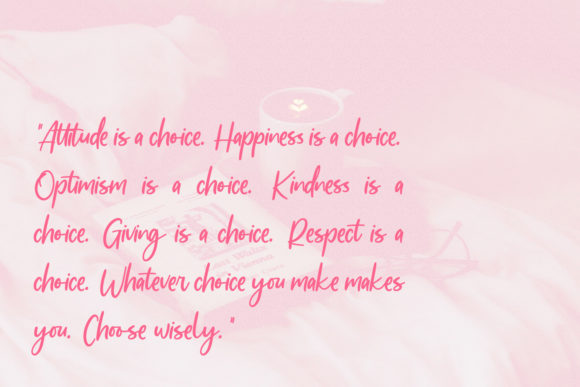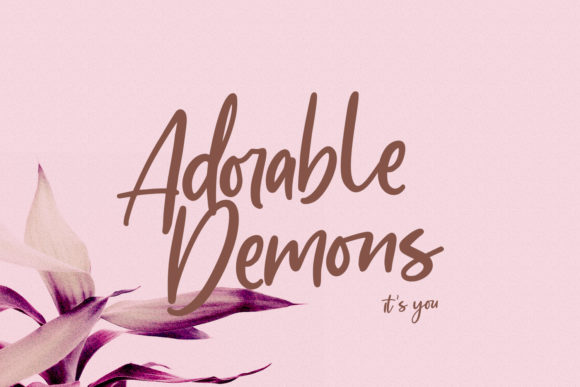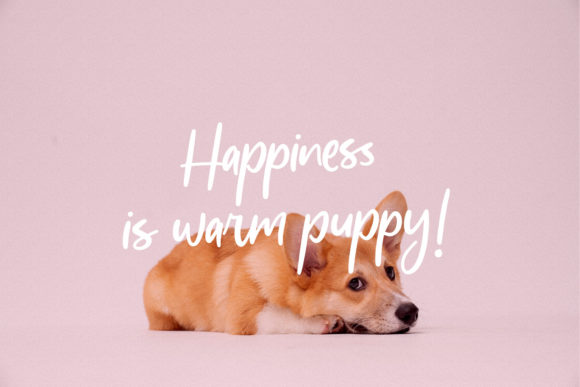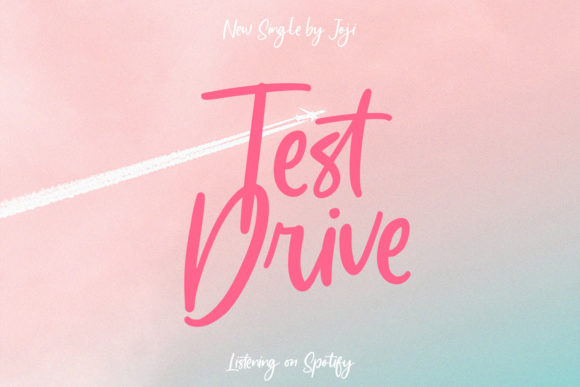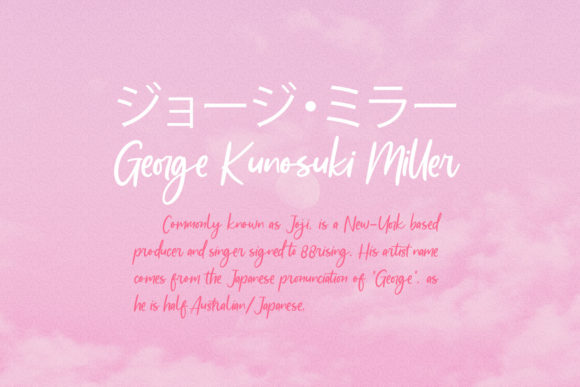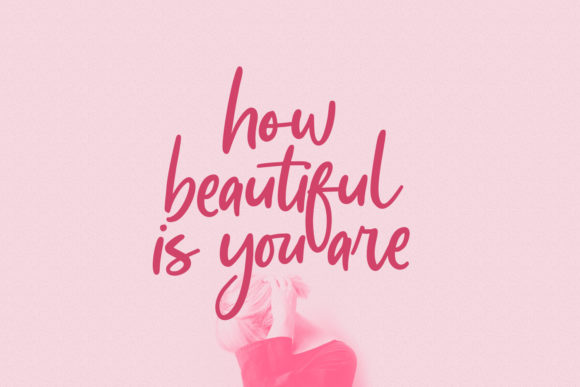
Introducing Adoredly Script Font: Elevate Your Designs with a Laid-Back, Handwritten Style
Are you tired of using the same old fonts in your designs? Do you want to add a touch of personality and whimsy to your creations? Look no further than Adoredly Script Font, a beautiful, laid-back, and flowing handwritten font that’s sure to become a staple in your font library.
What is Adoredly Script Font?
Adoredly Script is a stunning script font that features a lovely, elegant style. With its flowing lines and carefree vibe, this font is perfect for adding a touch of sophistication and charm to any design. Whether you’re working on a branding project, a wedding invitation, or a social media graphic, Adoredly Script Font is sure to impress.
Key Features of Adoredly Script Font
• Laid-back and flowing style: Adoredly Script Font features a relaxed, handwritten style that’s perfect for creating designs that feel friendly and approachable.
• Lovely and elegant: With its beautiful lines and curves, this font is sure to add a touch of sophistication to any design.
• Versatile: Adoredly Script Font can be used for a wide range of design projects, from branding and advertising to wedding invitations and social media graphics.
• Easy to read: Despite its elegant style, Adoredly Script Font is easy to read, making it perfect for use in both digital and print designs.
Why Use Adoredly Script Font?
So why should you choose Adoredly Script Font for your next design project? Here are just a few reasons:
• Add a personal touch: With its handwritten style, Adoredly Script Font is the perfect way to add a personal touch to your designs.
• Stand out from the crowd: This font’s unique style is sure to help your designs stand out from the crowd and grab attention.
• Elevate your brand: Adoredly Script Font is perfect for brands that want to add a touch of sophistication and elegance to their branding.
How to Use Adoredly Script Font
Adoredly Script Font is easy to use and can be incorporated into a wide range of design projects. Here are a few ideas to get you started:
• Branding and advertising: Use Adoredly Script Font to create eye-catching logos, ads, and marketing materials that showcase your brand’s personality.
• Wedding invitations and stationery: This font is perfect for creating beautiful, elegant wedding invitations and stationery.
• Social media graphics: Add a touch of personality to your social media graphics with Adoredly Script Font.
• Packaging design: Use this font to create eye-catching packaging that stands out on store shelves.
Tips for Pairing Adoredly Script Font with Other Fonts
Adoredly Script Font can be paired with a wide range of fonts to create stunning designs. Here are a few tips for pairing this font with other fonts:
• Pair with a sans-serif font: Pairing Adoredly Script Font with a sans-serif font like Arial or Helvetica can create a beautiful contrast and add visual interest to your designs.
• Pair with a serif font: Pairing Adoredly Script Font with a serif font like Times New Roman or Georgia can create a sophisticated and elegant look.
• Experiment with font sizes: Don’t be afraid to experiment with different font sizes to create visual hierarchy and add emphasis to your designs.
Adoredly Script Font is a beautiful, laid-back, and flowing handwritten font that’s sure to become a staple in your font library. With its lovely style and versatile nature, this font can be used for a wide range of design projects, from branding and advertising to wedding invitations and social media graphics. So why wait? Download Adoredly Script Font today and start elevating your designs with its unique and charming style.